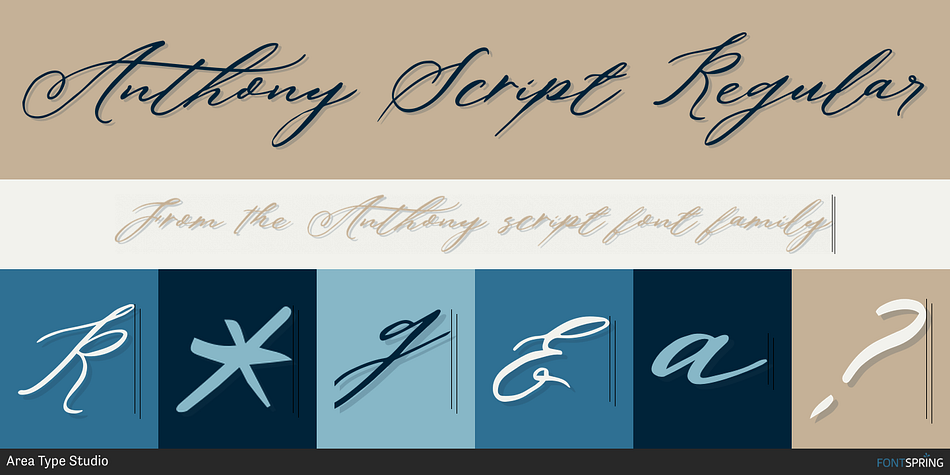
Anthony Script Regular
Anthony script is a historical, modern calligraphy and script font family published by Area Type Studio.
Anthony script is a lovely, modern calligraphic script. It features dynamic and pretty swashes and can be used for many purpose, such as titles, signatures, logos, wedding invitations, letterhead, signage, labels, newsletters, posters, badges, etc.
Anthony script features OpenType, including the initial and terminal letters, ligatures and International support for most Western languages ​​included.